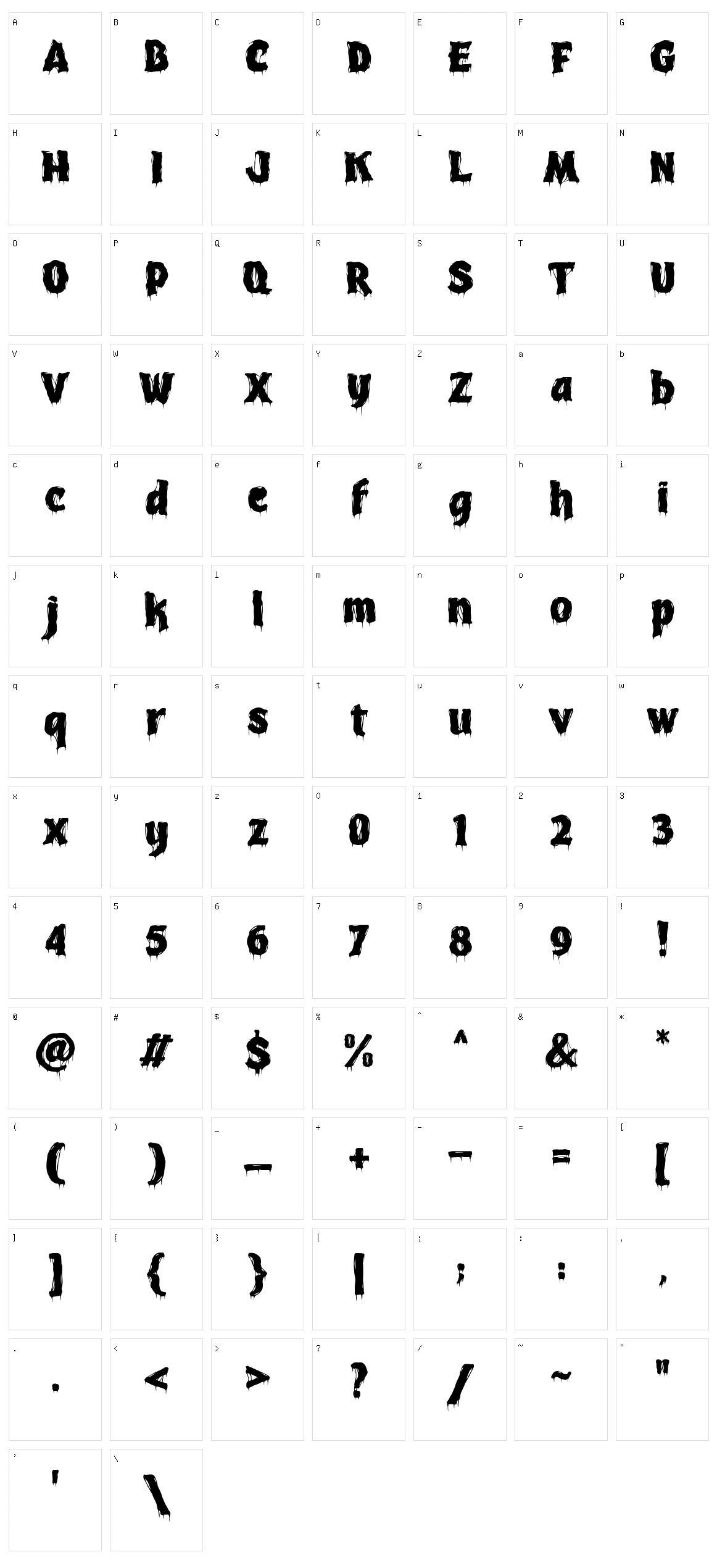
The free font Funroot is carefully designed by Alit Design, showcasing a thoughtful balance of creativity and usability and falls under the Halloween font style. When you download the ZIP file, it contains only 345.81 KB of font files, making it lightweight and quick to download. Please review the license details below to understand permitted usage and distribution rights. If license information is not available, we recommend using this font for personal projects only or contacting the author directly for commercial usage permissions.